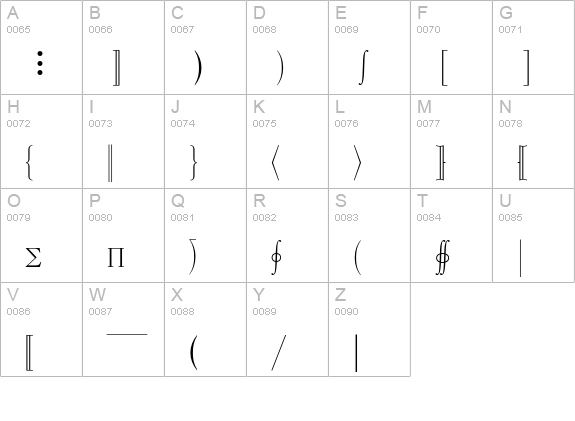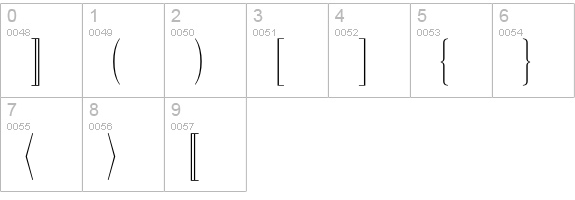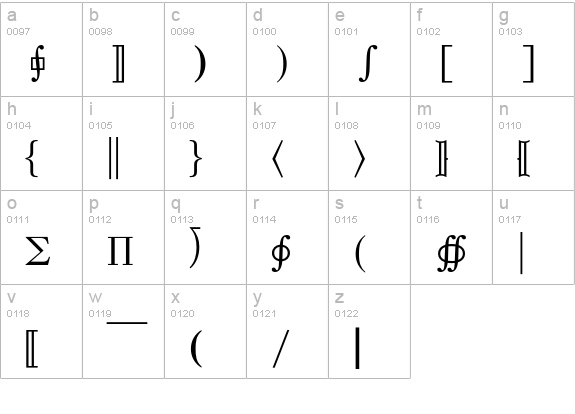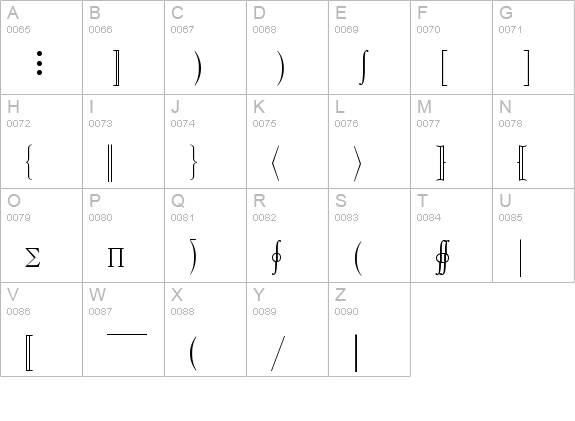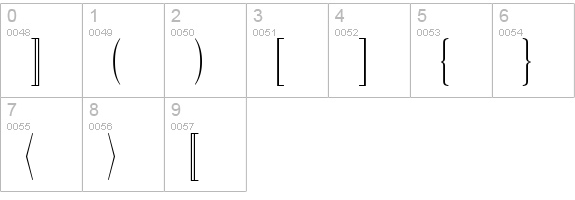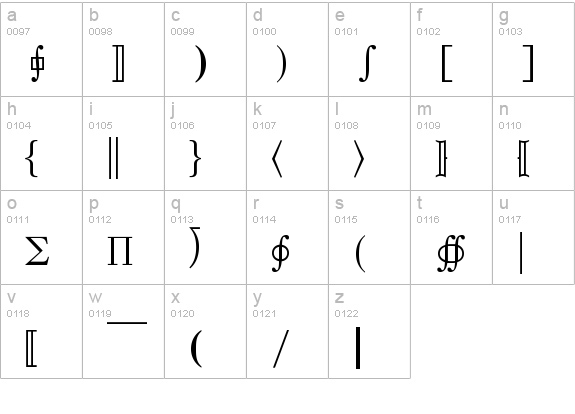
Mathematical Pi 3 Font Details
Introducing Mathematical Pi 3, a beautifully crafted font that combines the elegance of mathematical symbols with modern design elements. This font is perfect for any project that requires precision and sophistication, whether it's a mathematical equation, a scientific research paper, or a technical diagram. Mathematical Pi 3 is meticulously designed to ensure clarity and legibility, making it easy to read even in the most complex mathematical expressions. Each symbol is carefully balanced, with precise curves and lines that create a harmonious composition. What sets Mathematical Pi 3 apart is not only its stunning design, but also its accessibility. We believe that knowledge should be freely accessible to everyone, which is why Mathematical Pi 3 is available for free download at FontsMarket.com. Now, you can enhance your work with this exceptional font without breaking the bank. With Mathematical Pi 3, your equations will come to life on the page, capturing the attention of your audience and conveying your message with clarity and professionalism. Whether you're a mathematician, a scientist, or a student, this font is a must-have in your collection. So why wait? Take advantage of this incredible opportunity to elevate your work to new heights. Download Mathematical Pi 3 for free at FontsMarket.com and unlock the power of mathematical expression in your projects.